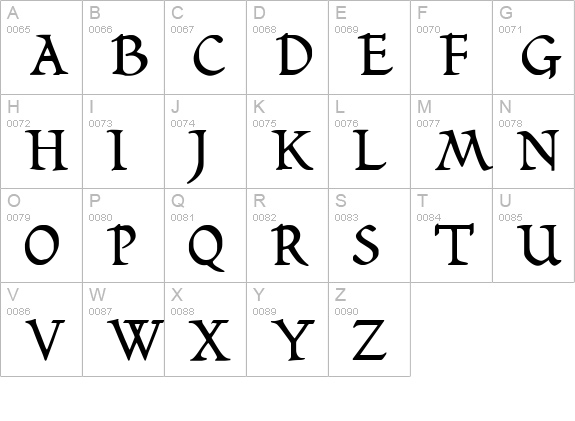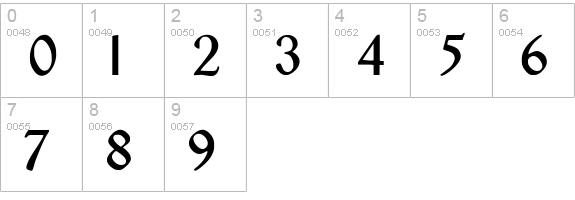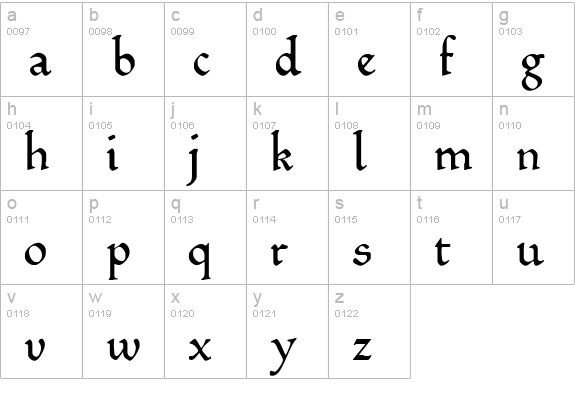
Romeodn Regular is the standard, neutral variant in the Romeodn typeface family \xE2\x80\x94 well suited to general body text, paragraphs, and standard typographic work.
Romeodn Regular font is a versatile and modern typeface that exudes sophistication and elegance. With its clean lines and balanced proportions, this font is perfect for a wide range of design projects, from branding to editorial design. The classic and timeless look of Romeodn Regular font makes it a versatile choice for both digital and print applications. Best of all, Romeodn Regular font is available for free download at FontsMarket.com. Simply head to the website and start using this beautiful typeface in your projects today. Whether you're designing a logo, creating a website, or working on a poster, Romeodn Regular font will add a touch of style and refinement to your designs. Don't miss out on this amazing opportunity to enhance your work with this stunning font – download Romeodn Regular for free now!